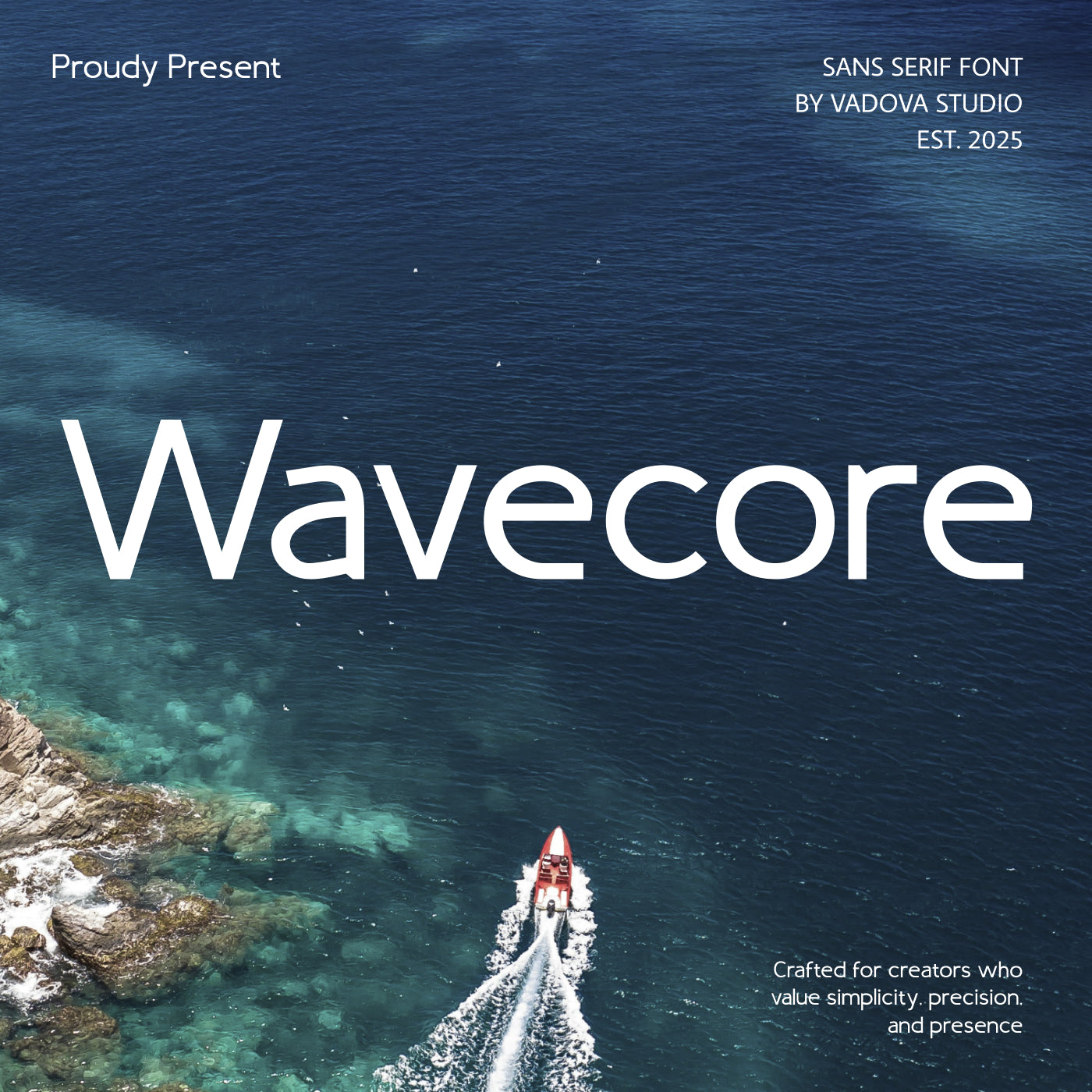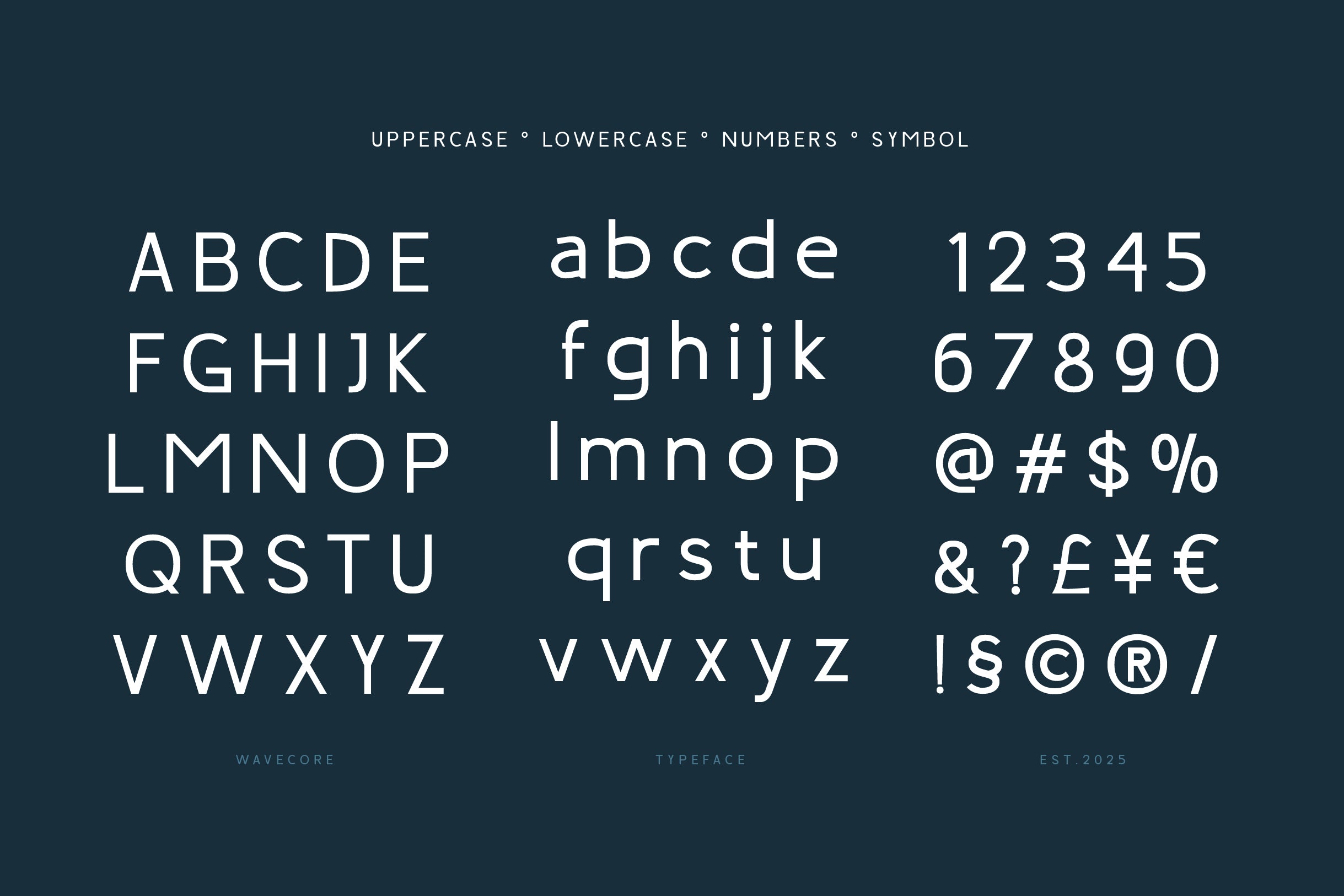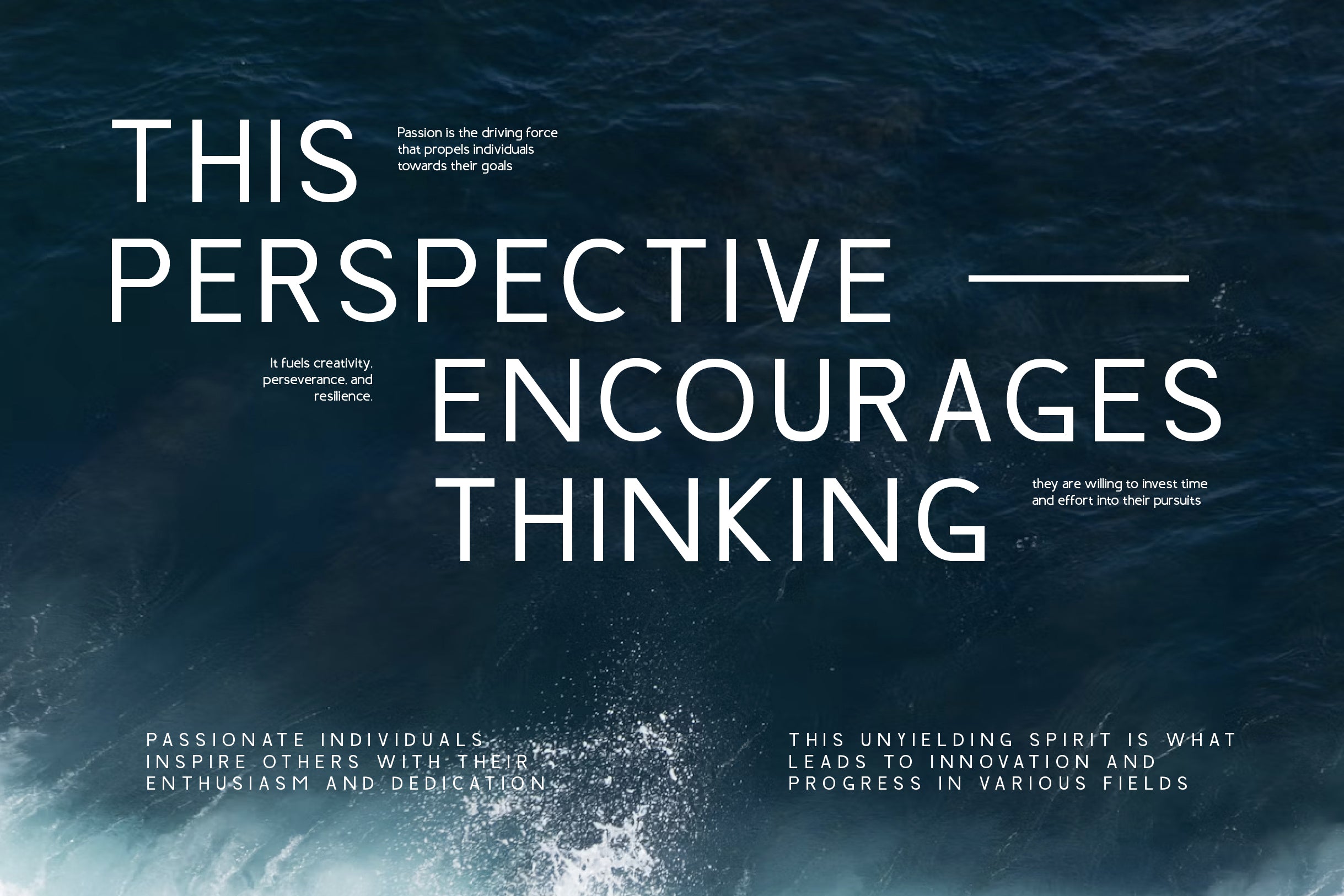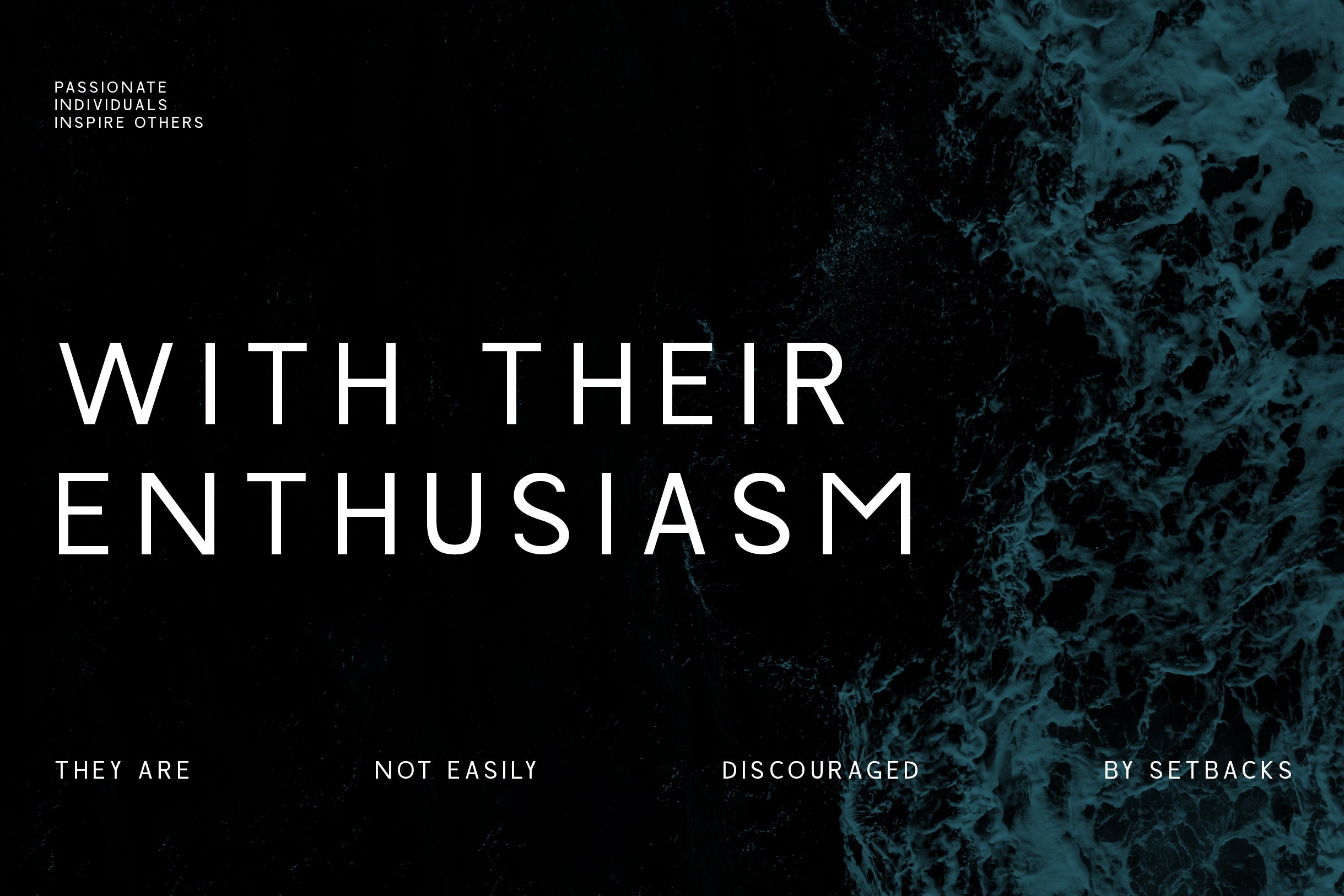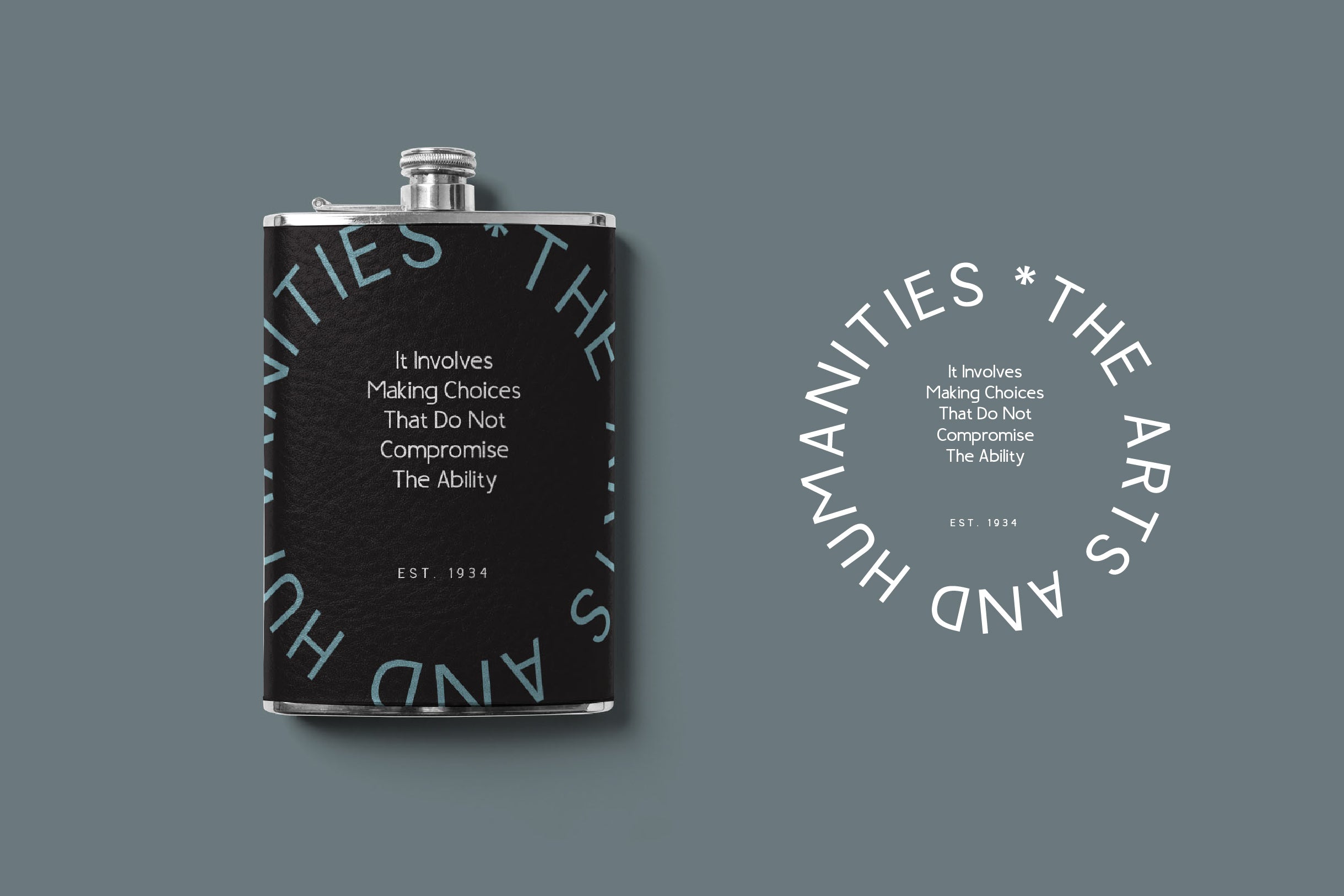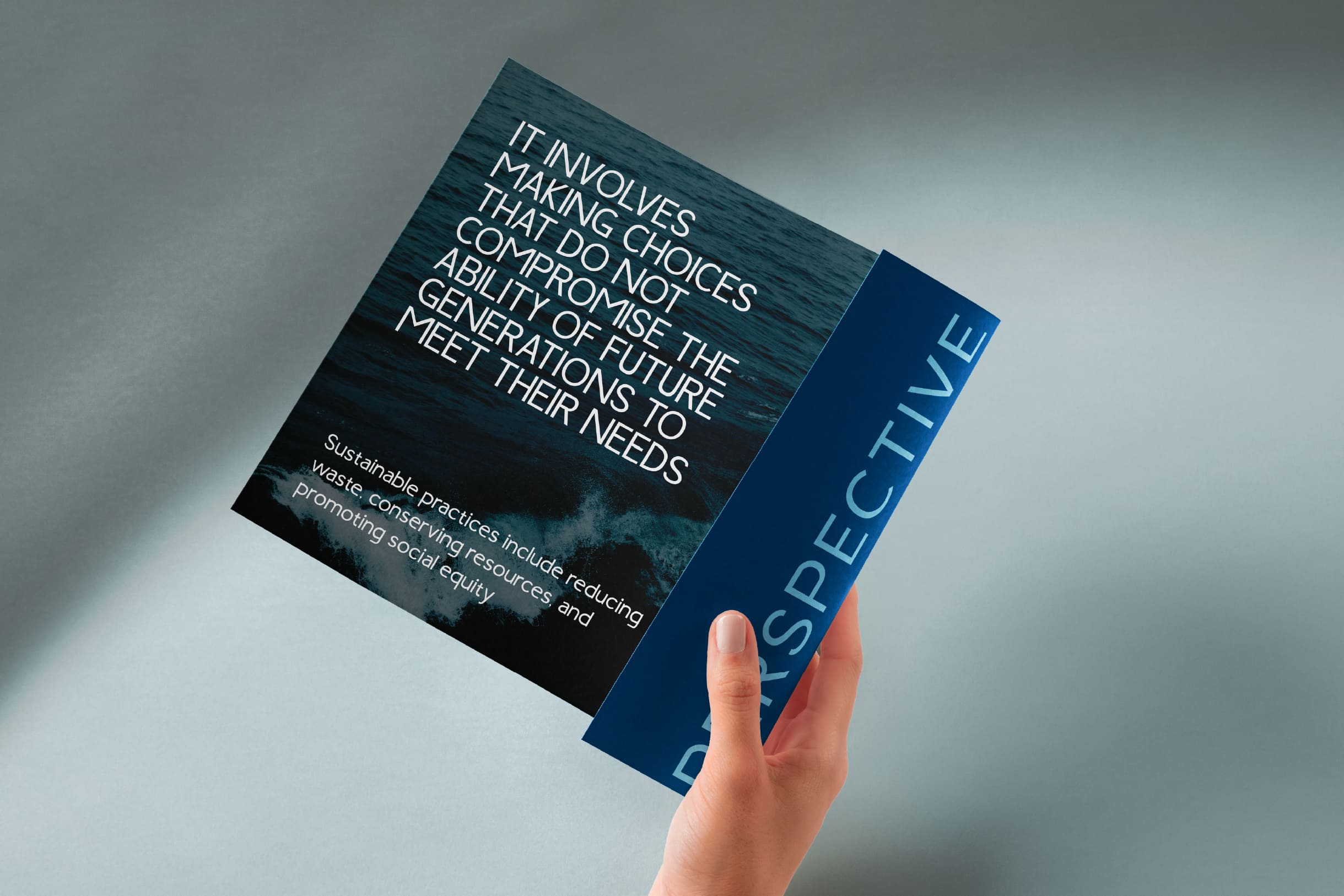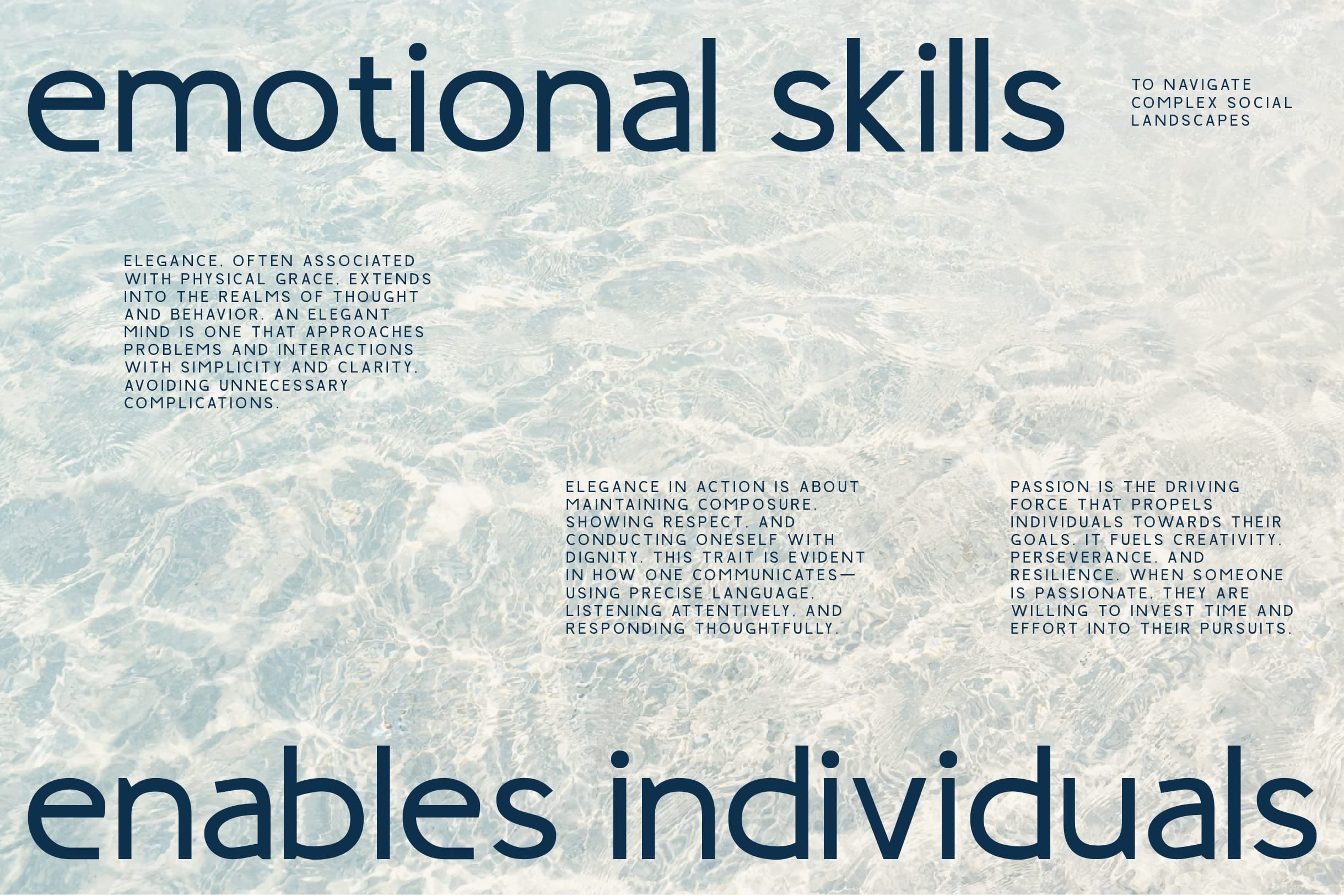
Wavecore Sans Serif Font
Wavecore is a bold and refined sans serif font that blends minimalist aesthetics with modern elegance. Designed with clean lines, balanced proportions, and a futuristic feel, this typeface is perfect for typographic posters, branding, editorial layouts, digital content, and corporate communication. Its versatile design includes uppercase and lowercase characters, numerals, and symbols ideal for designers seeking sophistication and clarity in their work.
Wavecore is a sans serif font featuring clean lines and balanced proportions, including uppercase and lowercase characters, numerals, and punctuation. It is available in TTF, OTF, and WOFF formats.